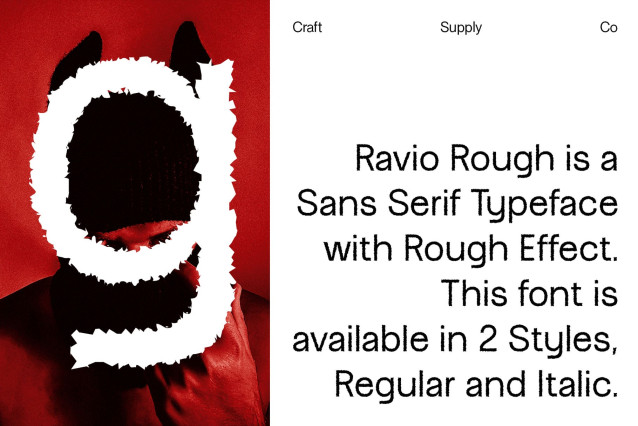
Ravio Rough Font
Ravio Rough Font – Modern Precision with a Textured Edge
Clean Geometry for a Contemporary Feel
RavioRough is a modern sans serif font built on clean, geometric foundations. Its sleek letterforms are shaped with precision, offering a sense of order, stability, and balance. The minimalist structure creates a clear and assertive appearance, making it perfect for contemporary design needs that value clarity and professionalism.